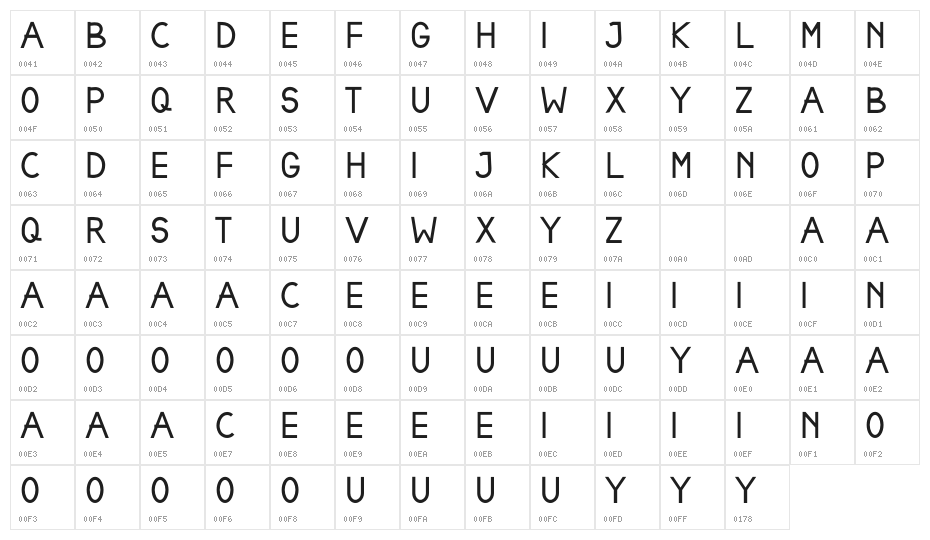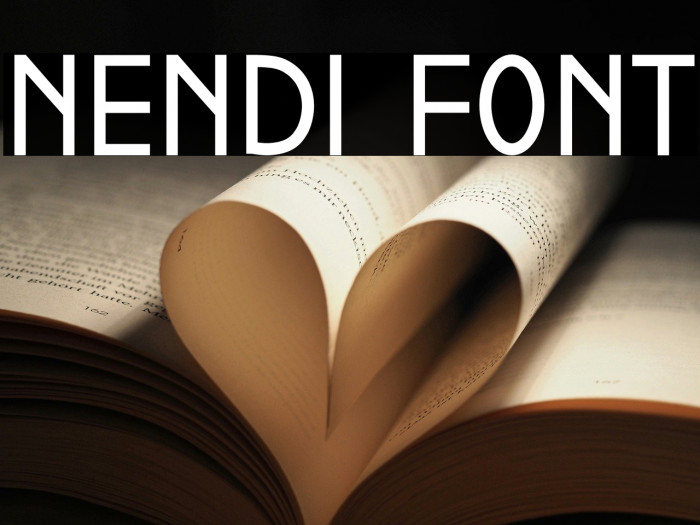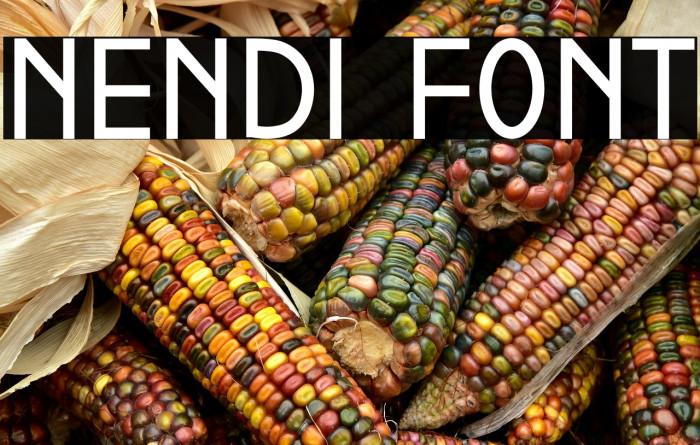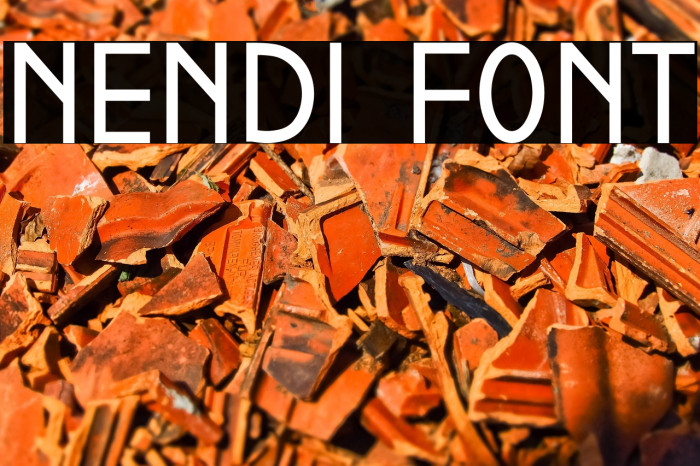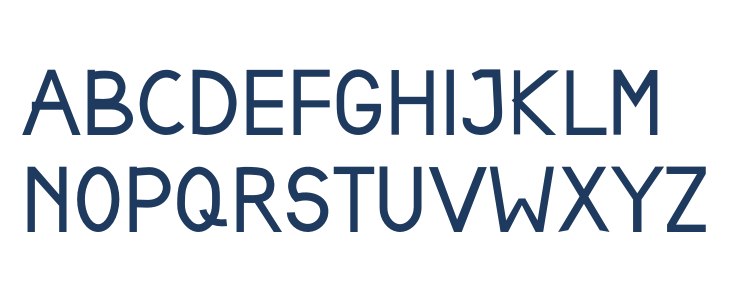
NENDI Font
NENDI Description
This font features a bold and geometric sans-serif style, characterized by its clean lines and modern aesthetic. The uppercase letters are uniform in height, with a consistent stroke width that gives the font a balanced and harmonious appearance. The absence of serifs and the straightforward design make it highly legible and versatile for various applications. The font's structure is simple yet impactful, making it suitable for both digital and print media. Its geometric nature lends a contemporary feel, while the boldness ensures that it stands out in any context.
| Use Case | Headlines, Logos, Digital interfaces |
| Proposed Projects | Ideal for branding, advertising, headlines, and digital interfaces where clarity and impact are essential. |